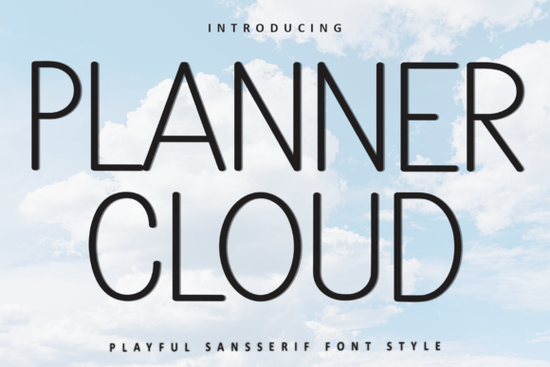
If you've been searching for a font that feels soft, personal, and easy to work with, Planner Cloud might be exactly what your next project needs. This typeface has a warm, hand-drawn quality with distinctive strokes that give it real personality. Whether you're designing planners, crafting custom prints, or building a brand identity, it fits naturally into a wide range of creative work. Let's look at what makes it stand out and how you can actually use it.
What Does Planner Cloud Font Look Like?
Planner Cloud has a soft, rounded style with gentle curves and unique letter shapes. It doesn't try to look overly polished and that's the whole point. The slightly irregular strokes give it a hand-lettered, organic feel that works beautifully for projects that need a personal or approachable touch.
It includes a variety of characters, so you're not stuck with just basic letters. You'll find enough range to handle full sentences, headings, and short phrases without running into missing glyphs. Compared to something like Goodly font, which leans clean and structured, Planner Cloud takes a softer, more expressive route.
Who Is This Font Best For?
This font works well for a surprisingly wide range of people and projects. Here's a quick breakdown:
- Planner designers The name says it all. It was made with planners in mind, so headers, tabs, and cover titles feel natural.
- Print-on-demand sellers Use it on mugs, tote bags, journals, and apparel where a friendly, casual vibe sells well.
- Crafters and hobbyists Great for Cricut projects, stickers, greeting cards, and scrapbook layouts.
- Small business owners Works nicely for logos, packaging, and social media graphics that need warmth without looking messy.
- Wedding and event stationery The soft strokes pair well with floral elements and watercolor backgrounds.
If you also work with sans-serif typefaces for contrast, pairing Planner Cloud with something like One More font can create a nice balance between playful and professional.
Where Can You Use Planner Cloud Font?
- Digital planners and journals Titles, section headers, and decorative labels.
- Social media posts Quotes, announcements, and promotional graphics.
- Product packaging Labels for candles, soaps, food items, and handmade goods.
- T-shirt and merchandise design Especially for niches like self-care, motivation, and lifestyle.
- Website graphics Blog headers, banners, and opt-in page titles.
- Invitations and cards Birthday invites, thank-you cards, and holiday greetings.
The font style is versatile enough to cross over between different audiences. A design that appeals to planner lovers on Etsy can also work as branding material for a small bakery or boutique.
How Does It Compare to Other Creative Fonts?
Every font has its own energy. Goodly is structured and modern. One More offers a clean, readable alternative. Planner Cloud sits in a different lane it's expressive, warm, and slightly whimsical without being childish.
That softness is what makes it useful. Not every project needs a bold, in-your-face typeface. Sometimes you need something that feels like a friend wrote it, and that's where this font really shines. If you're building a font collection for your design work, having options across different moods gives you more flexibility for client projects and product lines.
Tips for Getting the Best Results
- Use it for short text Headlines, titles, and short phrases work best. It's not ideal for long paragraphs or body copy.
- Pair it with a simple sans-serif A clean, neutral font for body text keeps the design readable while letting Planner Cloud do the talking.
- Watch your spacing Soft, rounded fonts sometimes need a bit of extra letter-spacing to stay legible, especially at smaller sizes.
- Test on different backgrounds It looks great on light, muted backgrounds. Avoid busy or high-contrast backgrounds that clash with its gentle style.
Planner Cloud is a solid choice if you want a font that feels personal and versatile. It won't work for every project no single font does but for the right design, it adds a softness and character that's hard to fake with more rigid typefaces.